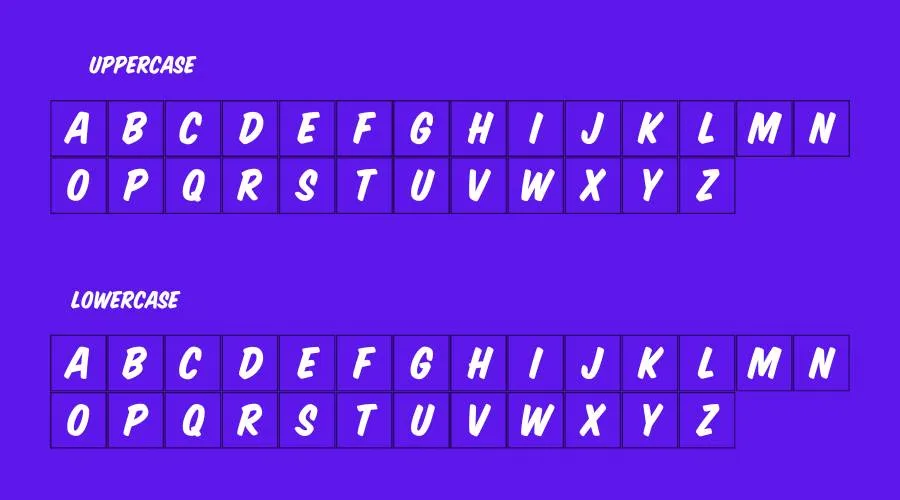
About Sign Painter House Slant Font
The Sign Painter House Slant font was designed in 1994 by the renowned House Industries and is under the category of the display texture family. This unique and stylish font was developed with a focus on creating typography that is free and can be utilized on your both operating systems PC and MAC.
This stunning typeface could be used for signage and other larger text applications. It contains all types of characters uppercase letters, lowercase letters, numeric, digits, symbols, and punctuations. You may utilize this font with cooper black otl font and create new attractive projects.